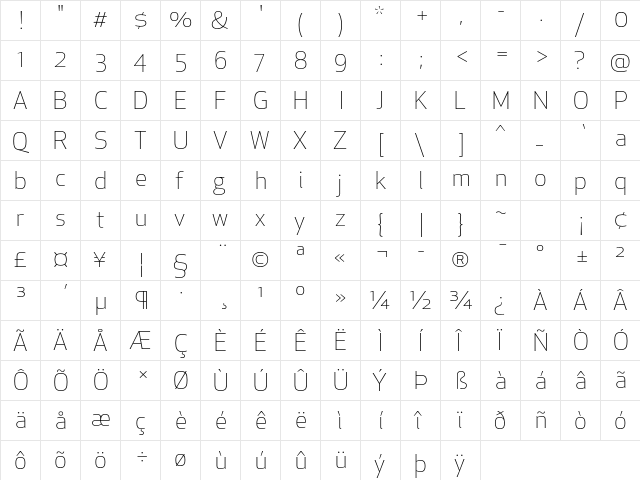
Apex New Light
| Foundry | Village Type & Design LLC (Thirstype) |
| Designer | chester (orignally designed with Rick Valicenti) |
| Version | Version 1.001 2006, Revised version replacing Apex Sans |
Design Context for Apex New Typeface
Apex New takes a measured approach to typography — its balanced proportions and neutral character make it a reliable workhorse for both digital and print work. Its slender proportions lend an understated elegance to any composition.